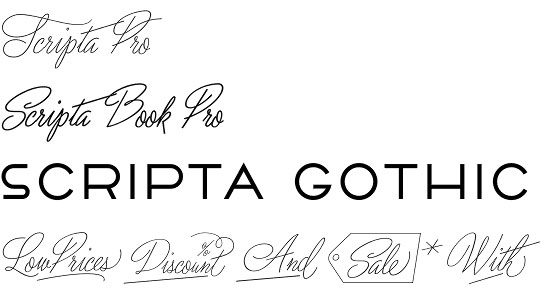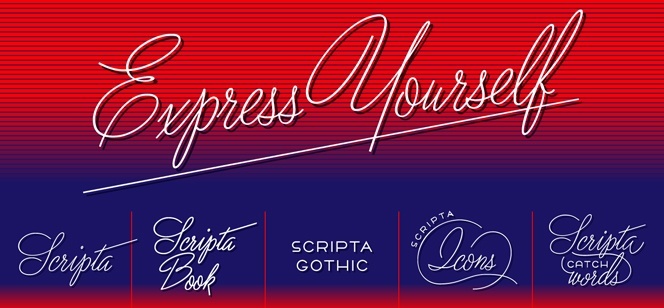
Scripta Pro
Scripta Pro is a contemporary font family that draws its inspiration from the 40s and 50s and especially from the advertising scripts of that time. It is also dedicated to the works of the famous American type designer L.H. Copeland, the author of the well known book “Design of the Roman letters”. The script accurately conveys one of the main characteristics of this period – the boom of the artistic fantasies caused by the high expectations based on the rapid development of the science and technology.
Scripta Pro has a very distinctive appearance with its thin lines, lush ornaments and curly doodles and ribbons. The delicate handwritten lettering gives the font a feminine look that makes it perfect for applications such as invitations, different kinds of inscriptions, logos, headlines, subheads, posters, fashion related items and in anything in which a bit of romance has to be added.
Scripta Pro font family comes in two weights – Pro and Book Pro with a few mouthwatering extra fonts – Scripta Gothic – an art deco style typeface with its typical geometric forms, Scripta Catchwords for those who wish to apply words created and Scripta Icons – a font with ornaments typical for the Post war era.
Scripta Pro font family is designed by the hugely experienced John Moore and released by his own type foundry. John is one of the most famous type designers in Venezuela and has a very solid background in that field with his work well appreciated and often published in numerous magazines throughout Asia and the Americas. He also has many awards under his belt, having won the Latin American Biennial of typography Typos Latinos twice. Take a look at his Moho Script, Moho, Duvall, JMTF Robin.